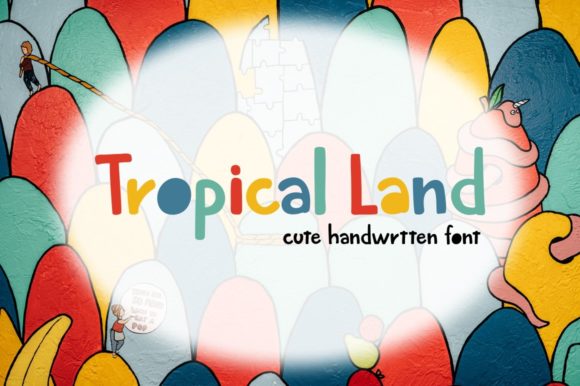
About Tropical Land Font
Tropical Land is a cute and friendly handwritten font. This font is perfect for children themed designs, especially when combined with bright colors.